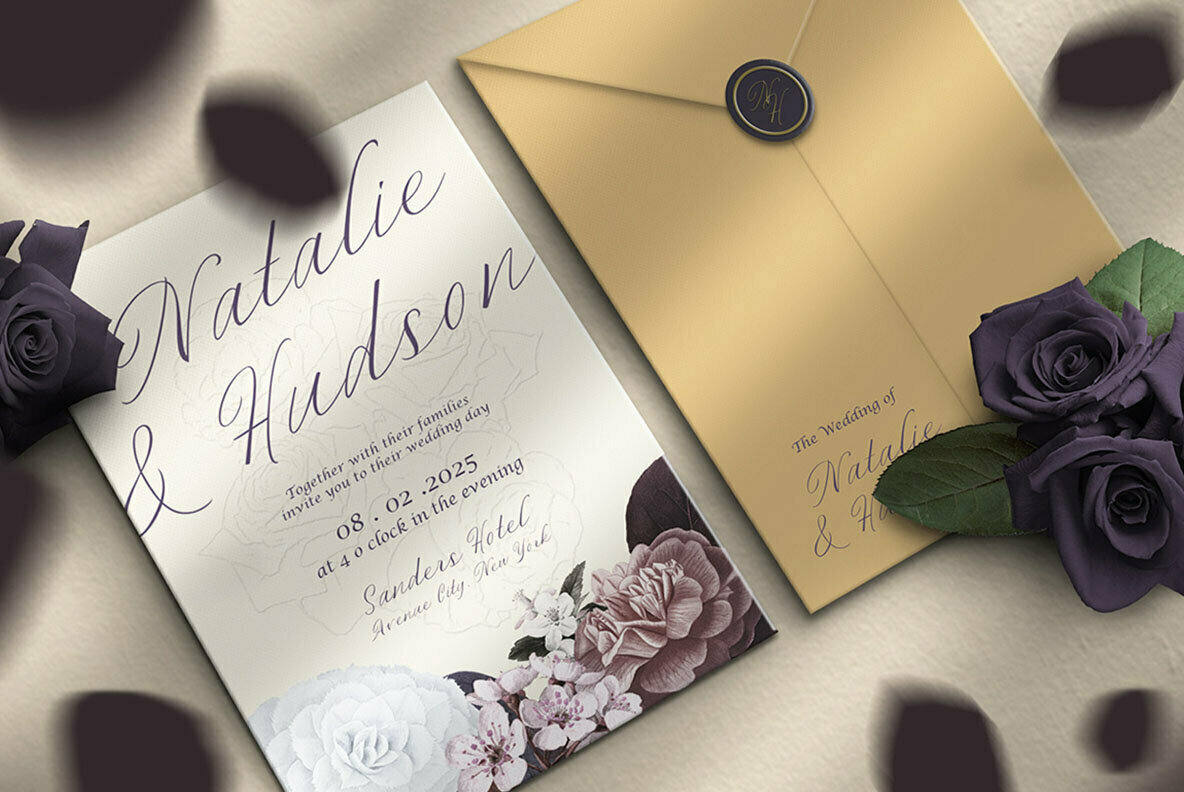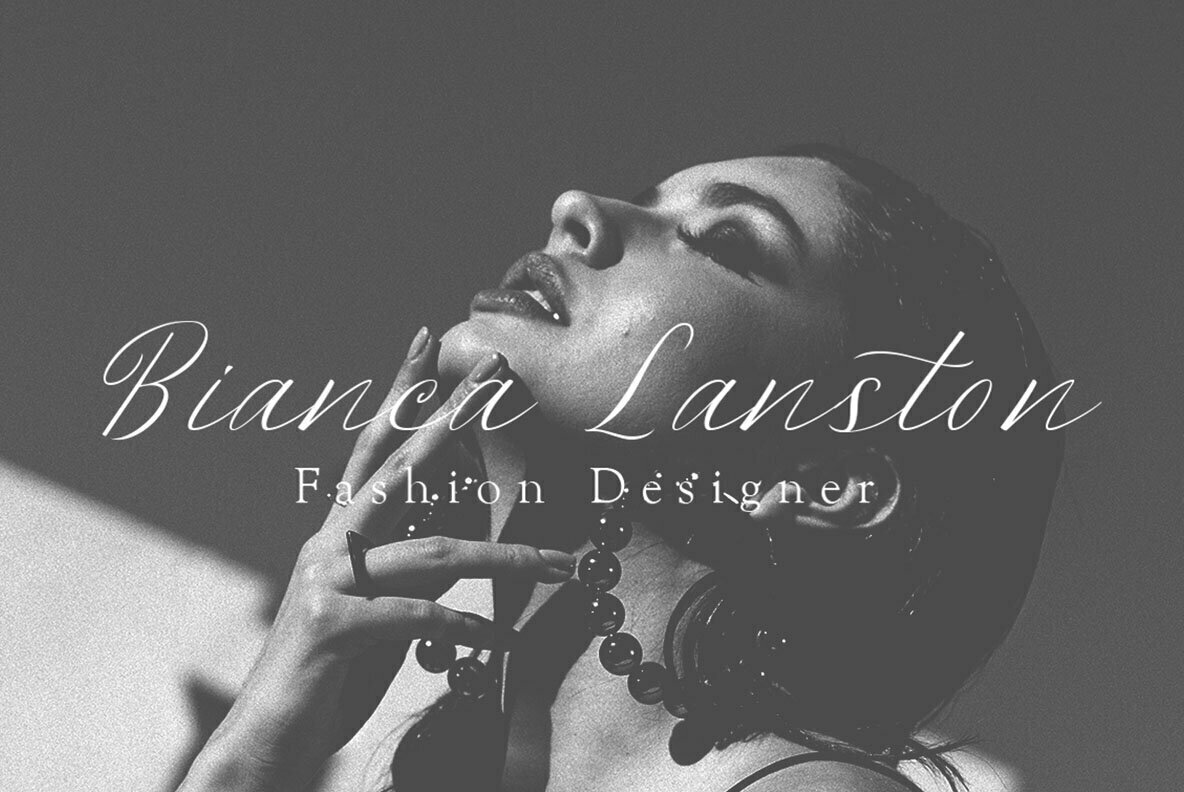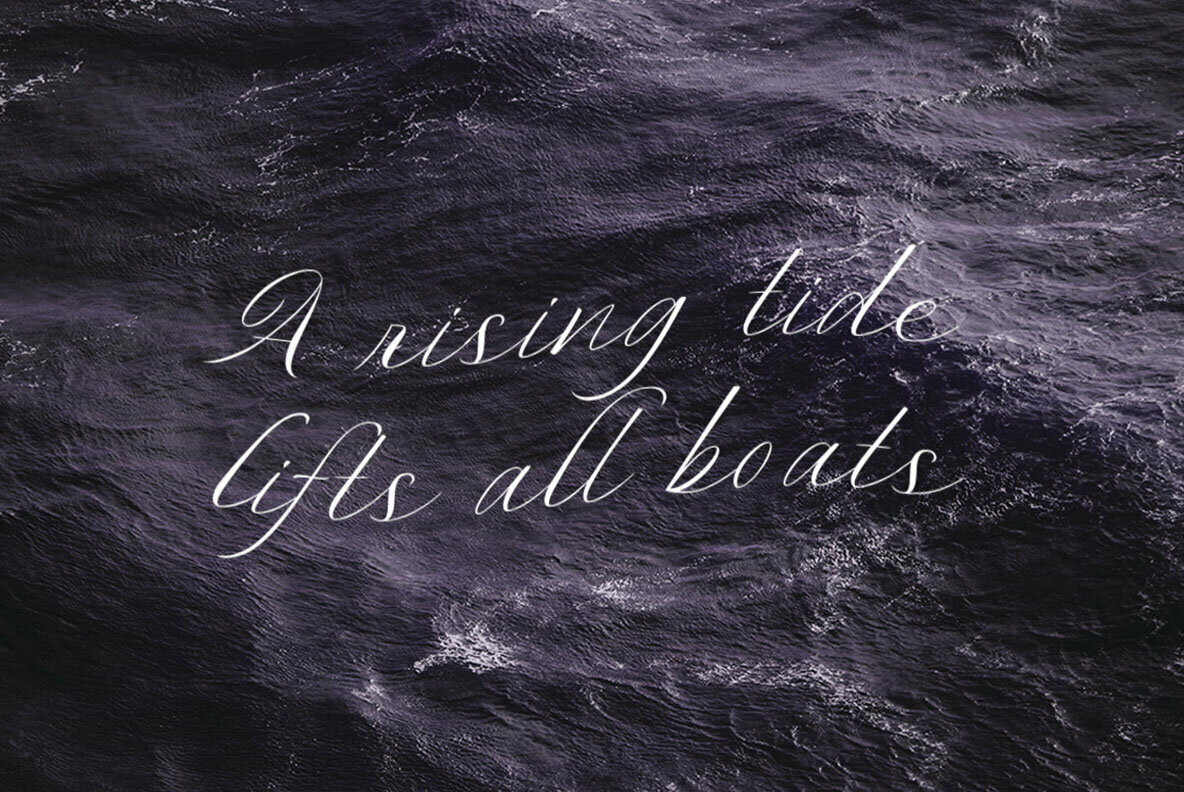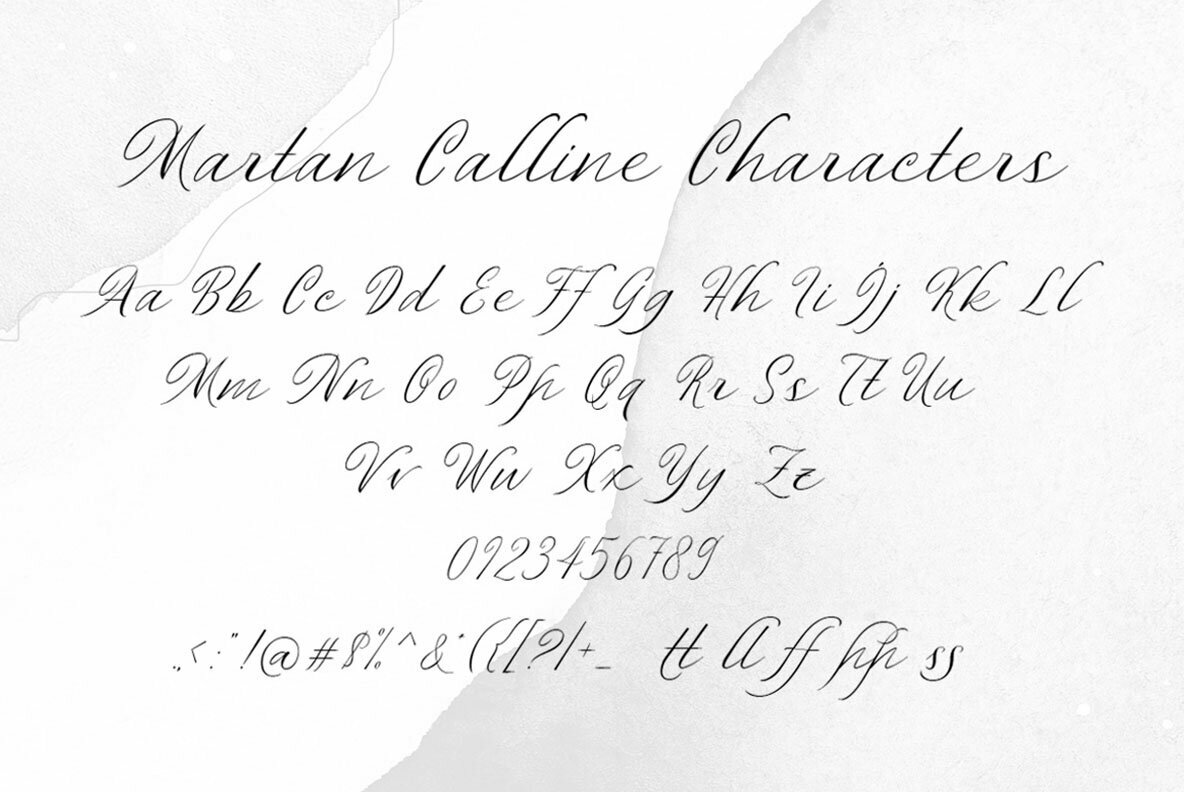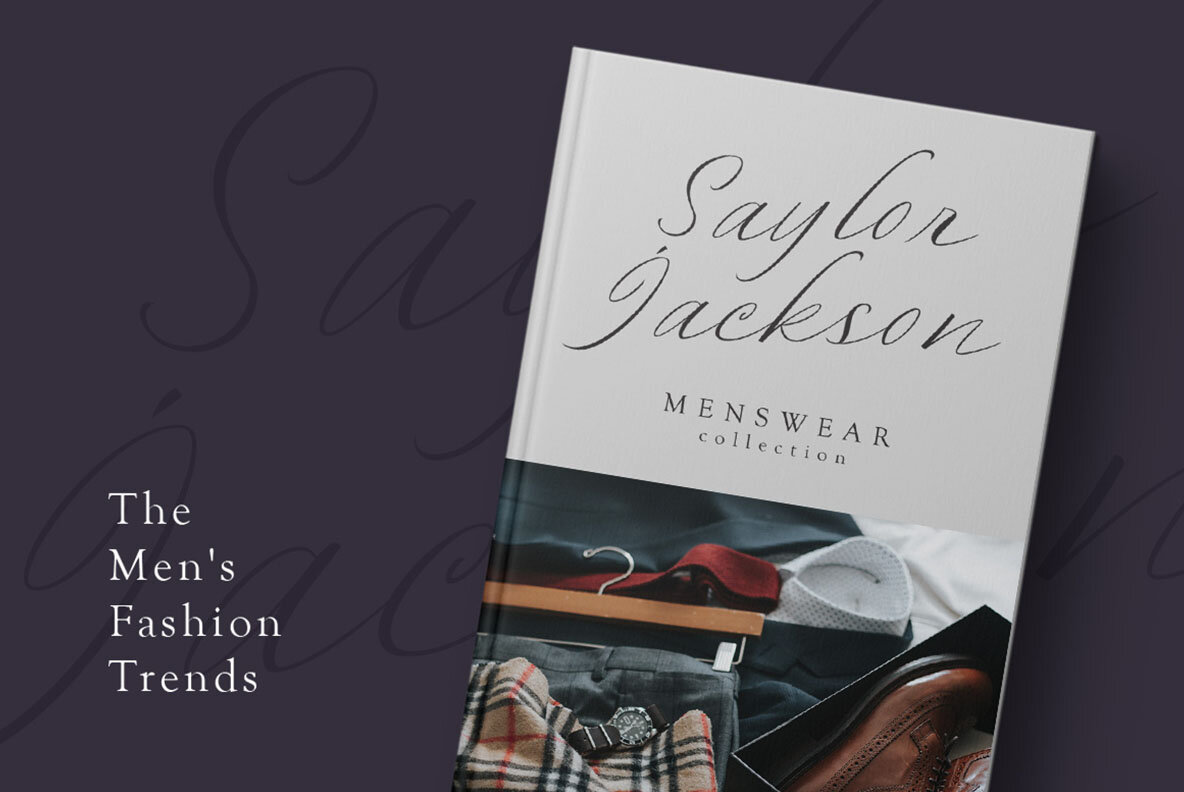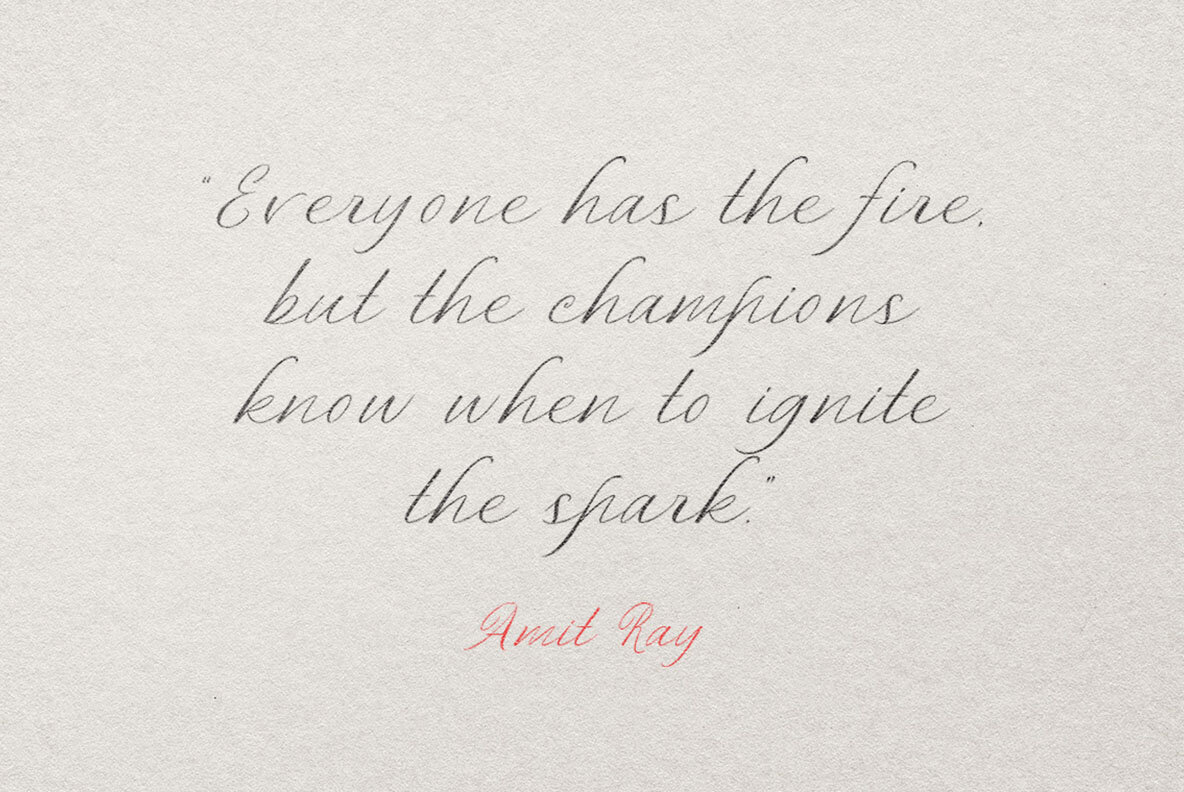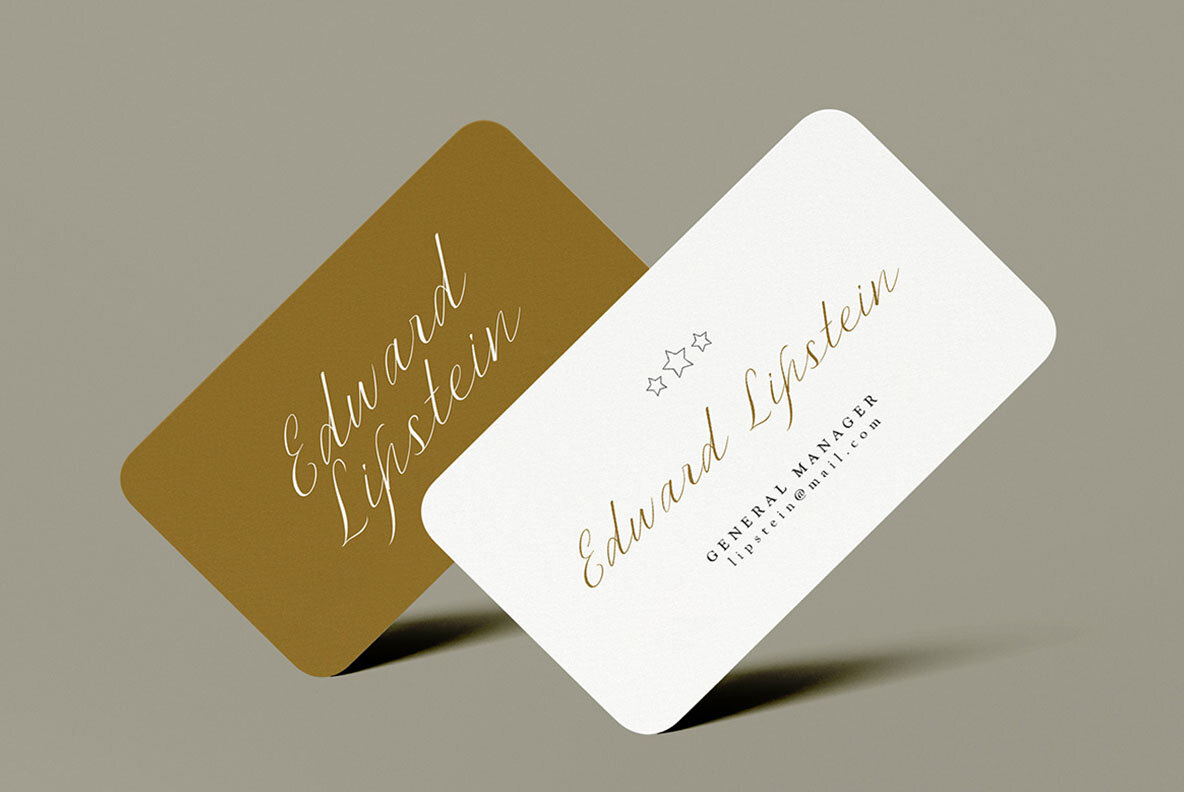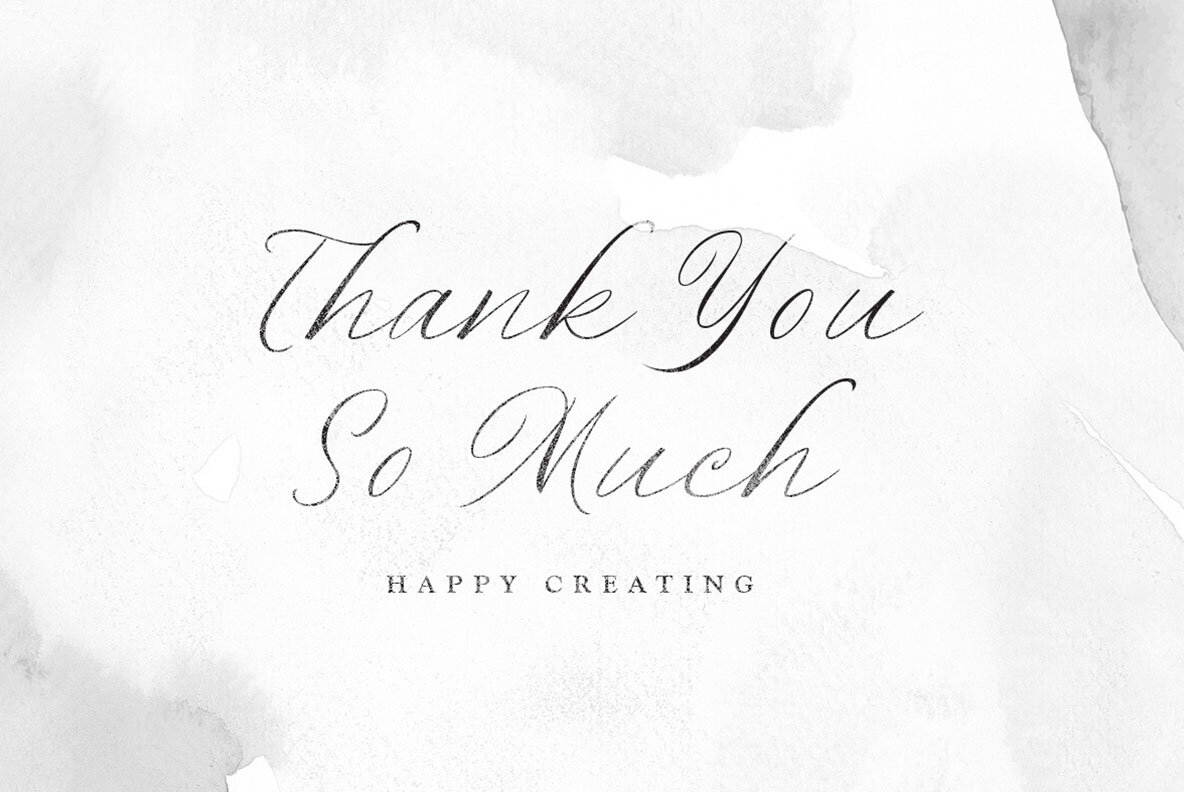
Martan Calline Font
Martan Calline
Martan Calline is an exquisite script typeface inspired by the art of manual calligraphy ink on paper. The design exudes elegance and class, offering numerous swashes that facilitate the creation of beautiful lettering in an instant. Its bouncy character and natural strokes provide an authentic handwritten appearance, making it ideal for various formal applications. This font is perfect for logos, invitations, labels, and other formal contexts, including magazines, books, greeting and wedding cards, packaging, fashion, makeup, stationery, novels, labels, and advertising materials. Features: For the best use of Martan Calline, we recommend working with software that supports OpenType features and Glyph panels, such as Adobe applications and Corel Draw. These programs allow you to explore and apply all available Glyph variations.Martan Calline: An Elegant Script With Handcrafted Flair